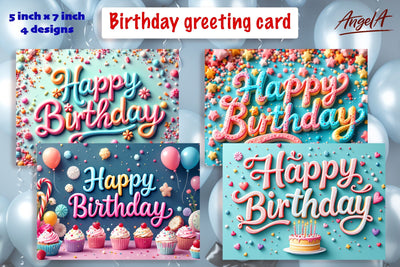
Horizontal Birthday card printable, Happy birthday lettering
Horizontal Birthday card template is printable colorful Happy birthday card with calligraphic lettering text with birthday cake, confetti, sweets, flowers.